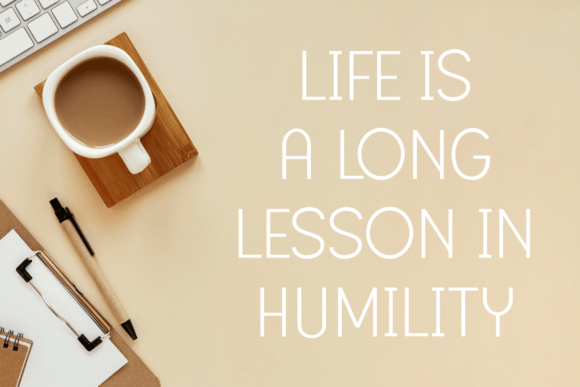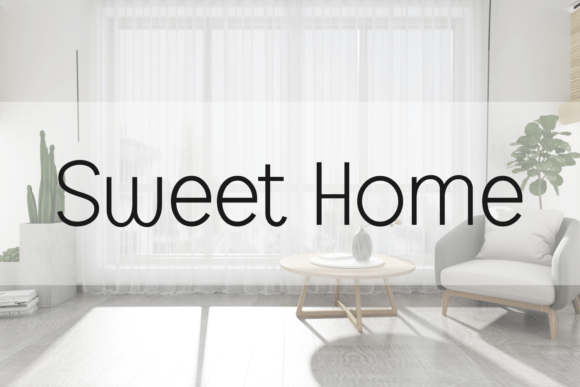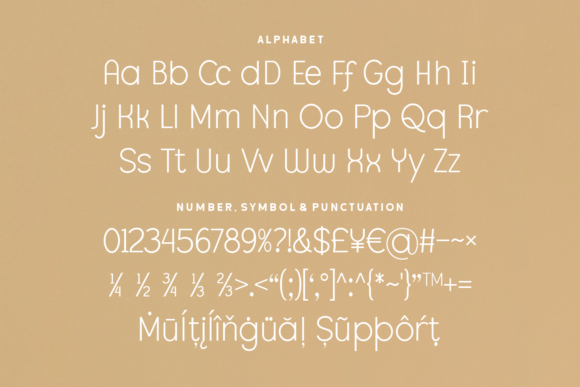
Introduction to Mileyon Font
Mileyon is a sleek and elegant sans serif font with a graceful twist—literally.
With clean minimalist lines and a unique wave detail on the “y”, this typeface blends sophistication with personality Ideal for branding, fashion editorials, lifestyle blogs, and modern product packaging, Mileyon delivers style that feels fresh, refined, and effortlessly creative.
Mileyon Font offers exceptional quality and versatility, making it a valuable addition to your design toolkit. Whether you’re creating for personal projects or commercial use, Mileyon Font delivers professional results.